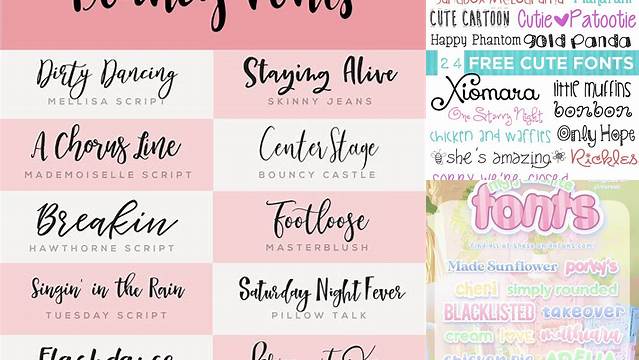
Cute Script Fonts On Dafont: Free Downloads
Hey guys! Looking for some adorable script fonts to spice up your designs? Dafont is a treasure trove, and we're diving deep into the world of cute script fonts available there. Get ready to explore a ton of options to make your projects truly shine! This article is your ultimate guide to finding the perfect cute script fonts dafont has to offer, ensuring your designs are both charming and captivating. From playful invitations to elegant branding, we've got you covered. Let’s get started and discover the magic of beautiful typography!
1. Exploring the Charm of Handwritten Script Fonts
Cute script fonts often mimic the flow of handwritten text, adding a personal and intimate touch to any project. When you're browsing cute script fonts dafont, you'll find that handwritten fonts are a really great way to evoke feelings of warmth, authenticity, and creativity. These fonts are perfect for projects that need a human touch, such as greeting cards, wedding invitations, or branding materials for small businesses. The beauty of handwritten script fonts lies in their imperfection; each stroke and curve adds character and makes the text feel uniquely crafted. For example, consider using a delicate handwritten script for a thank-you note or a more playful one for a birthday card. The versatility of these fonts makes them a fantastic choice for a wide array of design applications. Choosing the right cute script font can transform a simple design into something truly special, capturing the essence of handwritten charm. So, next time you're looking to add a touch of personality to your work, remember the allure of handwritten script fonts – they might just be the perfect fit!
2. Discovering Elegant and Flowing Script Typefaces
For a touch of sophistication and grace, elegant and flowing script typefaces are a superb choice. When you're searching for cute script fonts dafont, you'll notice a plethora of options that exude elegance. These fonts often feature elaborate swashes, delicate curves, and a refined aesthetic that can elevate any design. They are ideal for projects that require a sense of luxury and class, such as wedding stationery, high-end branding, or formal invitations. The flowing nature of these scripts adds a visual rhythm that is pleasing to the eye, drawing the reader in with its graceful lines. Imagine using an elegant script for the heading of a stylish magazine or the logo of a boutique hotel; it's the kind of font that makes a statement. Exploring the range of cute script fonts with an elegant flair can help you create designs that are not only beautiful but also convey a sense of prestige and sophistication. Choosing the right typeface can make all the difference in achieving the desired impact. So, if you're aiming for elegance, these scripts are definitely worth considering!
3. Playful and Whimsical Script Fonts for Fun Designs
If you're aiming for a more lighthearted and joyful feel, playful and whimsical script fonts are the way to go. When you check out cute script fonts dafont, you’ll find tons of options that are just bursting with personality. These fonts often have a bouncy baseline, quirky letterforms, and an overall sense of fun that can inject energy into any design. They’re awesome for projects aimed at children, casual invitations, or branding for creative businesses. Think about using a whimsical script for a children’s book cover or a fun logo for a bakery; the possibilities are endless! The charm of these fonts lies in their ability to bring a smile to your face and create a sense of playfulness. When choosing cute script fonts, a whimsical style can help you stand out and make a lasting impression. It’s all about capturing the essence of fun and translating it into your design. So, if you're looking to add a touch of whimsy, explore the world of playful script fonts – you won't be disappointed!
4. Vintage and Retro Script Fonts: A Nostalgic Touch
Vintage and retro script fonts can add a nostalgic touch to your designs, evoking the charm of bygone eras. When you search for cute script fonts dafont, you’ll stumble upon fonts that harken back to the mid-20th century, with their distinctive curves and stylish flourishes. These fonts are perfect for projects that aim to capture a sense of history or retro aesthetics, such as posters, signage, or branding for vintage-inspired businesses. The appeal of vintage script fonts lies in their ability to transport viewers to another time, creating a sense of nostalgia and authenticity. Envision using a retro script for a diner menu or a vintage-themed wedding invitation; it adds a layer of character that modern fonts often can't replicate. When selecting cute script fonts with a vintage vibe, you’re not just choosing a typeface; you’re choosing a piece of history. These fonts can truly make your designs stand out by blending classic style with contemporary applications. So, if you're looking to infuse your work with a touch of the past, explore the world of vintage and retro script fonts!
5. Modern and Chic Script Fonts for Contemporary Projects
For contemporary projects that need a touch of sophistication, modern and chic script fonts are an excellent choice. While exploring cute script fonts dafont, you'll notice many options that blend classic script elements with modern design principles. These fonts often feature clean lines, elegant simplicity, and a refined aesthetic that makes them ideal for branding, editorial design, and stylish invitations. The beauty of modern script fonts lies in their versatility; they can be both eye-catching and subtle, making them suitable for a wide range of applications. Picture using a chic script for a fashion blog logo or a stylish wedding program; it adds a touch of elegance without being overly ornate. When selecting cute script fonts with a modern twist, you’re choosing a typeface that is both timeless and current. These fonts can elevate your designs, giving them a polished and contemporary feel. So, if you're aiming for a sleek and stylish look, modern and chic script fonts are definitely worth exploring!
6. Calligraphy-Inspired Script Fonts: The Art of Lettering
Calligraphy-inspired script fonts bring the artistry of hand-lettering to your digital designs. When you browse cute script fonts dafont, you’ll find typefaces that mimic the fluid strokes and elegant forms of traditional calligraphy. These fonts are amazing for projects that require a touch of sophistication and artistry, such as wedding invitations, certificates, or high-end branding. The beauty of calligraphy-inspired scripts lies in their ability to convey a sense of craftsmanship and attention to detail. Imagine using a calligraphic font for a formal event invitation or a personalized gift certificate; it adds a level of elegance that is hard to match. When choosing cute script fonts with a calligraphic influence, you’re essentially incorporating the art of lettering into your design. These fonts can transform ordinary text into something visually stunning, making your projects truly memorable. So, if you're looking to add a touch of artistry, calligraphy-inspired scripts are an excellent choice!
7. Brush Script Fonts: Dynamic and Energetic
Brush script fonts offer a dynamic and energetic feel, mimicking the strokes of a paintbrush. When you explore cute script fonts dafont, you'll discover a wide range of typefaces that have a hand-painted quality. These fonts are perfect for projects that need to convey movement, creativity, or a casual vibe, such as posters, social media graphics, or branding for creative businesses. The appeal of brush script fonts lies in their informal and expressive nature; they have a natural, free-flowing quality that sets them apart from more traditional scripts. Envision using a brush script for a promotional flyer or a fun t-shirt design; it adds a touch of spontaneity and energy. When selecting cute script fonts in the brush style, you’re choosing a typeface that brings a sense of vitality to your work. These fonts can help your designs stand out by adding a handmade, artistic touch. So, if you're looking to inject some energy into your projects, brush script fonts are a fantastic option!
8. Choosing the Right Script Font for Your Project
Choosing the right script font is crucial for achieving the desired impact in your project. When you're looking through cute script fonts dafont, consider the overall tone and message you want to convey. Different script fonts evoke different emotions and styles, so it's essential to select one that aligns with your project’s purpose. For example, an elegant script might be perfect for a wedding invitation, while a playful script would be more suitable for a children's birthday card. Think about the audience you're trying to reach and the context in which the font will be used. A modern, clean script might be ideal for a tech company’s branding, while a vintage script could enhance the authenticity of a retro-themed design. The key is to find a cute script font that not only looks appealing but also communicates the right message. So, take your time to explore different options and consider how each font will contribute to the overall design. Choosing wisely can make all the difference in the success of your project!
9. Pairing Script Fonts with Other Font Styles
Pairing script fonts with other font styles can create a harmonious and visually appealing design. When working with cute script fonts dafont, it's important to consider how they interact with other typefaces. Script fonts often work best when paired with simpler, more legible fonts for body text, such as sans-serif or serif fonts. This combination ensures that the script font stands out while the rest of the text remains easy to read. For instance, you could pair an elegant script with a classic serif font for a sophisticated look or a playful script with a clean sans-serif for a more contemporary feel. The contrast between the script and the accompanying font can add visual interest and balance to your design. Think about using a script font for headings and a simpler font for paragraphs to create a clear hierarchy. When selecting cute script fonts, always consider how they will complement other fonts in your project. Pairing them effectively can elevate your design and make it more engaging. So, experiment with different combinations to find the perfect balance!
10. Best Practices for Using Script Fonts in Design
Using script fonts effectively requires attention to detail and adherence to best practices. When working with cute script fonts dafont, it’s crucial to ensure that your text remains legible and visually appealing. Avoid using script fonts for large blocks of text, as they can be difficult to read in large quantities. Instead, use them sparingly for headings, titles, or short phrases. Pay attention to kerning and leading to ensure proper spacing between letters and lines. Adjusting these settings can significantly improve the readability of your script font. Also, consider the overall design aesthetic and choose a cute script font that complements your project’s style. Overusing script fonts can make a design look cluttered, so it's best to use them selectively. Remember, the goal is to enhance your design, not overwhelm it. By following these best practices, you can make the most of script fonts and create visually stunning and effective designs.
11. Free vs. Premium Cute Script Fonts
When searching for cute script fonts dafont, you'll encounter both free and premium options. Free fonts can be a great resource, especially when you're on a budget, but it's important to be aware of their limitations. Premium fonts often offer a higher level of quality, more extensive character sets, and better support. However, there are also many high-quality free cute script fonts available on Dafont. The choice between free and premium depends largely on your project requirements and budget. For personal projects or smaller designs, free fonts might suffice. However, for professional branding or commercial projects, investing in a premium font can ensure that you have access to the best possible resources and licensing rights. When exploring cute script fonts, always check the licensing terms to ensure you can use the font for your intended purpose. Whether you opt for free or premium, the key is to choose a font that meets your needs and enhances your design.
12. Popular Cute Script Fonts on Dafont
Dafont is a treasure trove of cute script fonts, and some are particularly popular among designers. When browsing cute script fonts dafont, you'll often see certain typefaces repeatedly recommended and used in various projects. These popular fonts have earned their reputation for their aesthetic appeal and versatility. Some examples might include elegant calligraphy-inspired scripts, playful brush fonts, and modern chic typefaces. The popularity of these cute script fonts often stems from their ability to work well in a variety of design contexts, from wedding invitations to logos. Exploring these frequently used options can give you a sense of current trends and help you find a font that suits your style. However, don't be afraid to venture beyond the popular choices and discover unique gems that might perfectly capture the essence of your project. The world of cute script fonts dafont offers is vast and full of possibilities!
13. How to Download and Install Fonts from Dafont
Downloading and installing fonts from Dafont is a straightforward process. When you've found a cute script font dafont that you love, the first step is to download the font file. Dafont typically offers fonts in ZIP format, so you'll need to extract the files after downloading. Once extracted, you'll find the font files, usually in .OTF or .TTF format. To install the font on Windows, simply right-click the font file and select “Install.” On macOS, you can double-click the font file, and it will open in Font Book, where you can click “Install Font.” After installation, the cute script font should be available for use in your design software. It's always a good idea to restart your applications if you don't see the font immediately. Make sure to review the font’s licensing terms on Dafont before using it in your projects. Downloading and installing cute script fonts from Dafont is a quick and easy way to expand your typographic toolkit and enhance your designs.
14. Understanding Font Licensing on Dafont
Understanding font licensing on Dafont is crucial before using any cute script fonts in your projects. Dafont offers a wide range of fonts, but their licensing terms vary. Many fonts are free for personal use but may require a commercial license for business or for-profit projects. When you find a cute script font dafont, always check the license information provided by the font author. This information is usually found on the font’s download page. Look for terms like “Free for Personal Use,” “Commercial Use Allowed,” or specific restrictions. If you’re unsure about the licensing terms, it’s best to contact the font author directly for clarification. Using a font without the appropriate license can lead to legal issues, so it’s essential to do your due diligence. Knowing the licensing terms ensures you can use your chosen cute script fonts legally and ethically. Always respect the font author’s rights and follow their guidelines.
15. Using Script Fonts for Logos and Branding
Using script fonts for logos and branding can add a touch of elegance and personality to your brand identity. When you’re considering cute script fonts dafont for your logo, think about the overall message and tone you want to convey. Script fonts can evoke a range of emotions, from sophistication to playfulness, so choosing the right one is crucial. An elegant script might be perfect for a luxury brand, while a playful script could suit a creative business. However, readability is key, especially in a logo. Ensure that the cute script font you choose is clear and legible, even at smaller sizes. Also, consider how the script font pairs with other elements of your branding, such as colors and imagery. A well-chosen script font can make your logo stand out and create a memorable impression. When using cute script fonts for branding, it's all about finding the perfect balance between aesthetics and functionality. Make sure your logo not only looks beautiful but also effectively represents your brand.
16. Script Fonts for Wedding Invitations and Stationery
Script fonts are a fantastic choice for wedding invitations and stationery, adding a touch of romance and elegance to your special day. When you explore cute script fonts dafont, you'll find a plethora of options that are ideal for wedding-related designs. Elegant calligraphy-inspired scripts are particularly popular for wedding invitations, as they convey a sense of tradition and sophistication. However, there are also modern and whimsical script fonts that can add a unique and contemporary flair. When selecting cute script fonts for your wedding stationery, consider the overall theme and style of your wedding. A classic script might be perfect for a formal wedding, while a more casual script could suit a rustic or bohemian celebration. Ensure that the font is legible and pairs well with other design elements, such as paper stock and embellishments. Using cute script fonts effectively can transform your wedding invitations and stationery into cherished keepsakes that reflect your personal style and create a lasting impression.
17. Script Fonts for Social Media Graphics
Using script fonts in social media graphics can make your content stand out and capture your audience's attention. When you're browsing cute script fonts dafont, consider how these fonts can add personality and flair to your social media posts. Script fonts can be particularly effective for headings, quotes, and call-to-actions. A well-chosen cute script font can create a visual hierarchy and draw the viewer's eye to key information. However, readability is crucial on social media, where users often scroll quickly. Ensure that your script font is clear and legible, especially on smaller screens. Pair it with a simpler font for body text to maintain a balance between aesthetics and functionality. Think about the overall tone of your brand and choose a cute script font that aligns with your social media strategy. Whether it's an elegant script for a sophisticated brand or a playful script for a creative one, the right font can enhance your message and engage your audience. So, explore the world of cute script fonts and make your social media graphics shine!
18. Script Fonts for Print Materials: Brochures and Flyers
Script fonts can add a touch of elegance and personality to your print materials, such as brochures and flyers. When you're selecting cute script fonts dafont for print, consider how the font will appear in physical form. Legibility is super important, so choose a script font that remains clear and readable when printed. Avoid using overly intricate or thin scripts for large blocks of text, as they can become difficult to read. Instead, use cute script fonts sparingly for headings, titles, or short phrases to create visual interest. Think about the overall design of your brochure or flyer and select a script font that complements the other elements, such as colors and images. A well-chosen script font can enhance the aesthetic appeal of your print materials and help your message stand out. When using cute script fonts in print, always prioritize readability and visual harmony to create effective and professional-looking designs.
19. Creating Eye-Catching Headlines with Script Fonts
Creating eye-catching headlines is essential for grabbing attention, and script fonts can be a powerful tool in achieving this. When you’re looking for cute script fonts dafont, consider how these fonts can add personality and visual interest to your headlines. Script fonts, with their flowing lines and distinctive letterforms, can make your headlines stand out from the crowd. However, it's important to choose a cute script font that is both stylish and legible. An overly ornate or complex script can be difficult to read, defeating the purpose of a headline. Opt for scripts that have a clear and balanced design, ensuring that the message is easily conveyed. Consider the tone and style of your content and select a cute script font that aligns with it. Whether it’s an elegant script for a sophisticated topic or a playful script for a more casual theme, the right font can make a huge difference. When using cute script fonts for headlines, focus on clarity and visual impact to create headlines that truly captivate your audience.
20. Script Fonts for Website Design: A Touch of Elegance
Script fonts can bring a touch of elegance and personality to website design. When you're exploring cute script fonts dafont, think about how these fonts can enhance your website's overall aesthetic. Using cute script fonts for headings, titles, or call-to-action buttons can create a visually appealing and memorable user experience. However, it's crucial to use script fonts judiciously on websites. Overusing them can lead to readability issues and a cluttered design. Focus on legibility, especially for body text, where a simpler font is usually a better choice. When selecting cute script fonts for your website, consider factors like font loading time and responsiveness. Some script fonts can be quite large, which may slow down your website's loading speed. Ensure that your chosen font is web-optimized and renders well across different devices and browsers. By using cute script fonts strategically, you can add a touch of sophistication to your website without compromising usability.
21. Pairing Script Fonts with Serif Fonts
Pairing script fonts with serif fonts is a classic combination that can create a balanced and sophisticated design. When you're working with cute script fonts dafont, consider how well they complement serif typefaces. Serif fonts, with their traditional and formal appearance, can provide a nice contrast to the flowing and elegant nature of script fonts. This pairing works well because the serif font adds a sense of stability and readability, while the cute script font brings personality and flair. For instance, you could use a script font for headings and a serif font for body text to create a clear visual hierarchy. When selecting cute script fonts to pair with serifs, think about the overall tone of your project. An elegant script paired with a classic serif can convey a sense of tradition and sophistication, while a more modern script paired with a contemporary serif can feel fresh and stylish. The key is to find a balance that enhances the readability and visual appeal of your design. So, explore different combinations of cute script fonts and serifs to find the perfect match!
22. Pairing Script Fonts with Sans-Serif Fonts
Pairing script fonts with sans-serif fonts is a great way to achieve a modern and clean aesthetic in your designs. When you’re exploring cute script fonts dafont, consider how they harmonize with sans-serif typefaces. Sans-serif fonts, known for their simplicity and legibility, offer a stark contrast to the more decorative nature of script fonts. This pairing creates a visual balance that can be both eye-catching and easy to read. For example, you could use a cute script font for headings and a sans-serif font for body text, ensuring that your content is both stylish and accessible. When choosing cute script fonts to pair with sans-serifs, think about the overall mood of your project. A playful script paired with a modern sans-serif can create a fun and approachable feel, while an elegant script paired with a minimalist sans-serif can exude sophistication. The key is to ensure that the fonts complement each other without competing for attention. So, experiment with different combinations of cute script fonts and sans-serifs to find the perfect balance for your design!
23. Using Script Fonts for Invitations: Parties and Events
Using script fonts for invitations is a fantastic way to add a touch of elegance and personalization to your special occasions. When you’re browsing cute script fonts dafont, consider the wide array of options that can make your invitations truly stand out. Whether it's a birthday party, a formal gala, or a casual get-together, the right script font can set the tone and convey the unique style of your event. For formal events, elegant calligraphy-inspired scripts are often a superb choice, adding a touch of sophistication and class. For more casual gatherings, playful and whimsical scripts can create a fun and inviting atmosphere. When selecting cute script fonts for your invitations, think about the overall theme and style of your event. Ensure that the font is legible and pairs well with other design elements, such as colors, graphics, and paper stock. Using cute script fonts effectively can transform your invitations into cherished keepsakes that reflect your personal style and create a lasting impression on your guests.
24. Script Fonts for Personalized Gifts and Crafts
Script fonts are an excellent choice for personalized gifts and crafts, adding a unique and heartfelt touch to your creations. When you're exploring cute script fonts dafont, consider how these fonts can enhance your DIY projects. Whether you're creating custom mugs, personalized cards, or handcrafted signs, the right script font can make your gifts and crafts truly special. For gifts with a sentimental touch, elegant and flowing scripts can add a touch of sophistication and grace. For more playful and fun projects, whimsical scripts can bring a sense of joy and creativity. When selecting cute script fonts for your crafts, think about the recipient and the occasion. Ensure that the font is legible and complements the overall design of your project. Using cute script fonts effectively can transform ordinary items into personalized treasures that your loved ones will cherish for years to come. So, unleash your creativity and explore the world of cute script fonts for your next crafting adventure!
25. The Future of Script Fonts in Graphic Design
The future of script fonts in graphic design looks bright, with evolving trends and innovative applications. As designers continue to seek unique ways to express creativity and personality, cute script fonts are poised to play a significant role. The trend towards hand-drawn and authentic designs is likely to drive the popularity of script fonts that mimic natural handwriting and calligraphy. Additionally, the integration of technology and design tools will enable more sophisticated and dynamic use of script fonts. We may see more interactive and animated script fonts that respond to user input or adapt to different screen sizes. When you explore cute script fonts dafont, consider how these typefaces can be incorporated into cutting-edge designs. The blending of traditional script aesthetics with modern design principles will likely result in exciting and innovative typographic solutions. The future of cute script fonts in graphic design is all about pushing boundaries and embracing new possibilities.
26. Common Mistakes to Avoid When Using Script Fonts
Using script fonts effectively requires careful consideration, and there are several common mistakes to avoid. One of the biggest pitfalls is overusing cute script fonts, which can lead to cluttered and illegible designs. It’s best to use script fonts sparingly, focusing on headings, titles, or short phrases. Another common mistake is choosing a script font that is too intricate or difficult to read. Legibility is crucial, especially for body text, so opt for clearer and more balanced scripts. Additionally, it’s important to pay attention to font pairing. Pairing cute script fonts with overly similar typefaces can create a monotonous look, while pairing them with clashing fonts can create visual chaos. Always strive for balance and contrast in your font choices. When browsing cute script fonts dafont, take the time to experiment with different combinations and consider the overall impact on your design. By avoiding these common mistakes, you can harness the beauty of script fonts to create stunning and effective designs.
27. Inspiring Examples of Designs Using Cute Script Fonts
Looking at inspiring examples of designs using cute script fonts can spark your creativity and give you a better understanding of how to use them effectively. From wedding invitations to logos and branding materials, there are countless ways to incorporate script fonts into your projects. One common application is in logo design, where a cute script font can add a personal and memorable touch. For instance, a handcrafted goods business might use a whimsical script to convey a sense of charm and authenticity. In wedding stationery, elegant calligraphy-inspired scripts are often used to create a romantic and sophisticated feel. Social media graphics can also benefit from the use of cute script fonts, adding a stylish and eye-catching element to your posts. When exploring cute script fonts dafont, consider how these fonts are used in different contexts and draw inspiration from successful designs. Analyzing these examples can help you develop your own unique style and create designs that truly stand out.
28. Resources for Learning More About Typography
Learning more about typography can significantly enhance your design skills and help you make informed font choices. There are numerous resources available to expand your knowledge, from online courses to books and blogs. Websites like Typewolf and Fonts In Use offer insightful analyses of font pairings and typographic trends. Books such as “The Elements of Typographic Style” by Robert Bringhurst and “Thinking with Type” by Ellen Lupton are considered essential reading for designers. Online platforms like Skillshare and Coursera offer courses on typography fundamentals, font selection, and design principles. Additionally, exploring websites like Dafont, which offers a wide variety of cute script fonts, can provide hands-on experience in font selection and application. Engaging with these resources can help you develop a deeper understanding of typography and make more effective use of cute script fonts in your projects. Whether you’re a beginner or an experienced designer, continuous learning is key to mastering the art of typography.
29. How to Create Your Own Script Font
Creating your own script font can be a rewarding endeavor, allowing you to develop a unique typeface that perfectly reflects your style and personality. While the process can be intricate, it's a fantastic way to enhance your design skills and gain a deeper understanding of typography. The first step is to sketch out your letterforms, experimenting with different styles and strokes. Pay attention to the consistency of your letter heights, widths, and spacing. Once you have a solid set of letterforms, you can use font creation software like FontLab Studio, Glyphs, or FontForge to digitize your designs. These tools allow you to refine your letterforms, adjust kerning and spacing, and generate font files. When creating cute script fonts, consider the overall mood and message you want to convey. Whether it's an elegant calligraphy script or a playful handwritten font, your design choices should align with your vision. Testing your font in various applications and contexts is crucial to ensure legibility and visual appeal. Creating your own cute script font is a challenging but ultimately fulfilling project that can add a personal touch to your designs.
30. The Impact of Font Choice on Design Aesthetics
The choice of font has a profound impact on the aesthetics of any design, influencing the overall mood, message, and visual appeal. Fonts are not just a way to display text; they are a crucial element of visual communication, conveying tone and personality. When working with cute script fonts dafont, it’s important to recognize their unique characteristics and the emotions they evoke. Elegant and flowing scripts can add a touch of sophistication and romance, while playful and whimsical scripts can convey a sense of fun and creativity. The right font can elevate a design, making it more engaging and memorable. Conversely, a poorly chosen font can detract from the design’s effectiveness and even undermine its message. When selecting cute script fonts, consider the context in which they will be used and the audience you are trying to reach. A font that works well for a wedding invitation might not be suitable for a corporate website. Understanding the impact of font choice on design aesthetics is essential for creating visually compelling and effective designs. So, take the time to explore the world of cute script fonts and discover how they can enhance your projects!